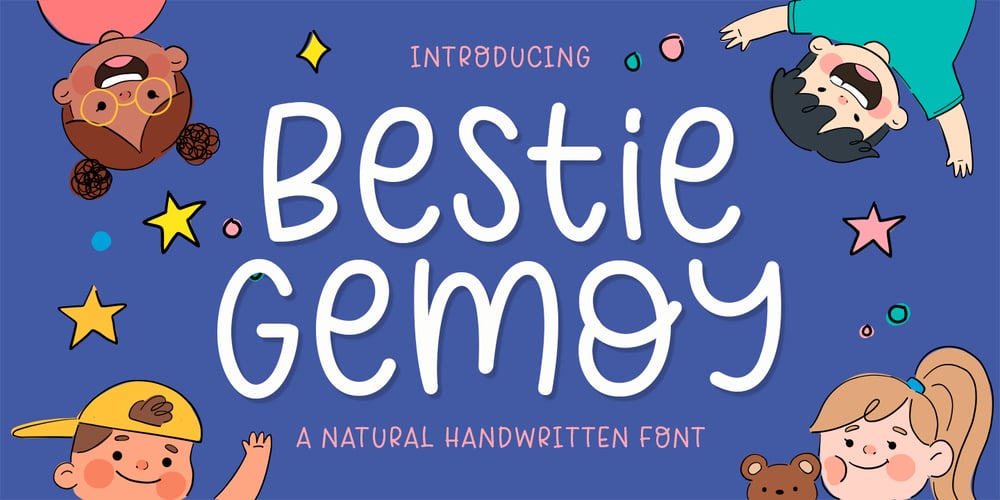
Bestie Gemoy Font Family was designed by Fajar Gunawan and published by Fargun Studio. Bestie Gemoy contains 3 styles and family package options. Bestie Gemoy a delightful handwritten font meticulously crafted with love and attention to detail. This font is suitable for quotes, branding, logos, wedding invitations, magazines, brochures, and many more.